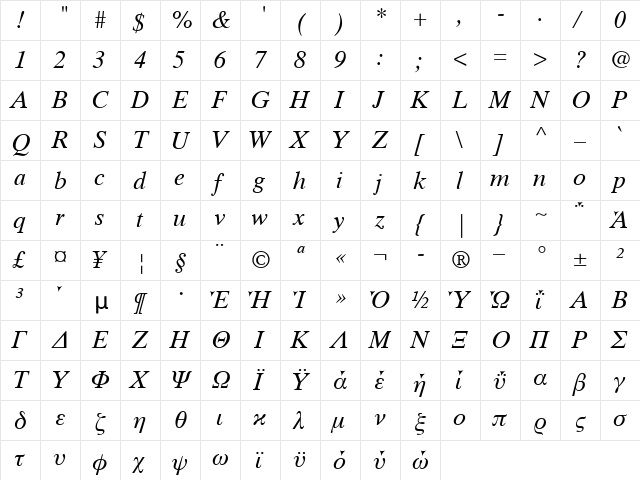
TimesTenGreek Upright Italic Font Preview
TimesTenGreek Upright Italic
TimesTenGreek Upright Italic Font Details
Design Context for TimesTenGreek Upright Typeface
TimesTenGreek Upright is a composed and adaptable typeface that performs quietly and consistently across a wide range of design contexts. Its italic angle brings a sense of urgency and motion to the letterforms.
Pro Tip: Use TimesTenGreek Upright for emphasis, pull quotes, and subheadings where its slanted energy can add rhythm to the layout.